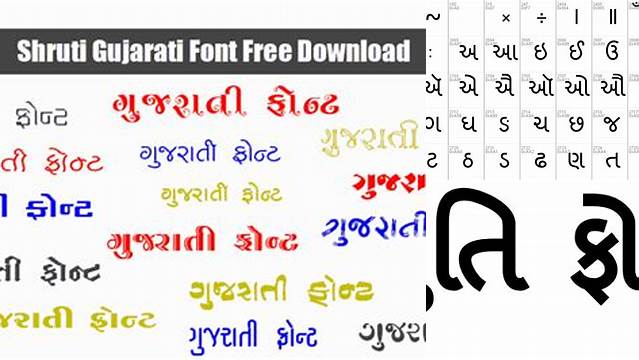
Gujarati Shruti Font: An Overview
Before we get into the download process, let's understand what makes the Gujarati Shruti font so special. This font is a widely used Unicode font that supports the Gujarati script, making it ideal for various applications, from document creation to web design. It's clear, legible, and aesthetically pleasing, which is why it's a favorite among Gujarati language users. Gujarati Shruti font offers excellent readability, ensuring that your text looks professional and is easy on the eyes. This section will delve deeper into the history, characteristics, and uses of this remarkable font.
Why Choose Gujarati Shruti Font?
Choosing the right font can significantly impact the readability and overall appearance of your text. Gujarati Shruti font is designed with clarity in mind, making it an excellent choice for both print and digital media. Its clean lines and consistent letterforms ensure that your content is easy to read, even at smaller sizes. This is particularly important for documents, websites, and applications where readability is paramount. Let's explore the unique benefits that Gujarati Shruti font brings to the table.
Gujarati Shruti Font Features
What exactly are the features that make Gujarati Shruti font stand out? Well, for starters, it's a Unicode font, which means it supports a vast range of characters and symbols, ensuring compatibility across different platforms and applications. It's also known for its consistent stroke thickness and well-defined letterforms, which contribute to its excellent readability. We'll break down the key features in detail, so you know exactly what you're getting with this font.